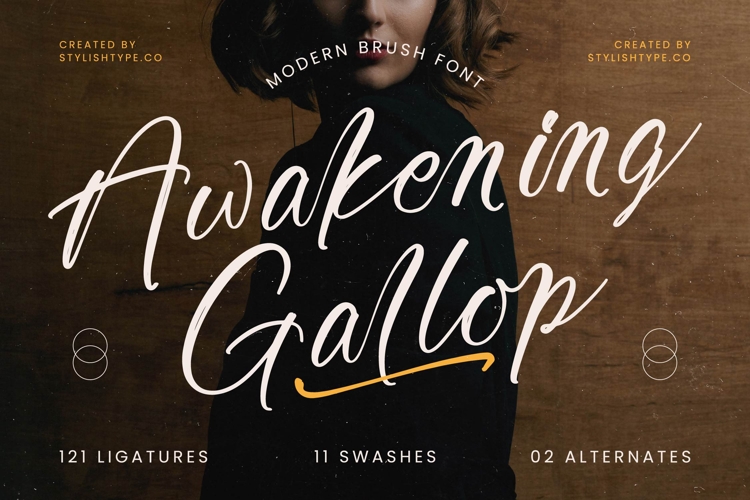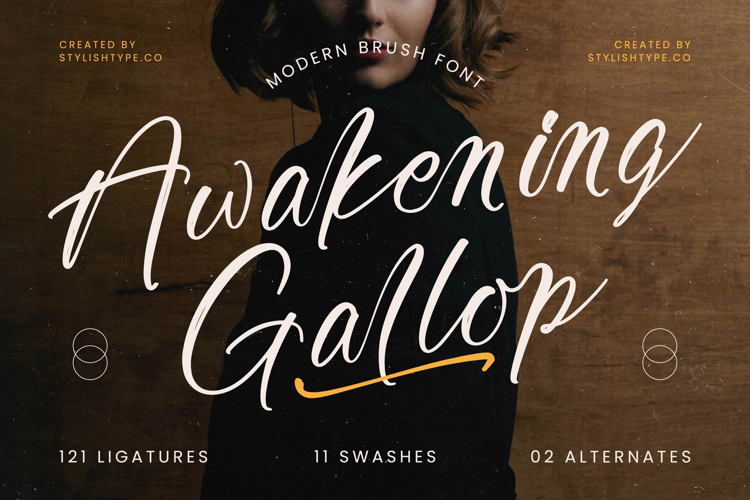
Awakening Gallop - Modern Brush Font
Unlock a world of expressive elegance with Font Awakening Gallop - Modern Brush Font Script. This captivating modern brush font effortlessly blends organic hand-drawn charm with contemporary sophistication. Its dynamic strokes and high-contrast weight create a truly authentic and visually striking impression, perfect for designs that demand both impact and refinement.
Designed for ultimate creative flexibility, Font Awakening Gallop - Modern Brush Font Script features a generous suite of 121 ligatures, 11 swashes, and 02 alternates. These OpenType features allow for seamless customization, ensuring each word flows with a unique, handcrafted aesthetic. Achieve a truly bespoke feel that resonates with authenticity and artistic flair in every composition.